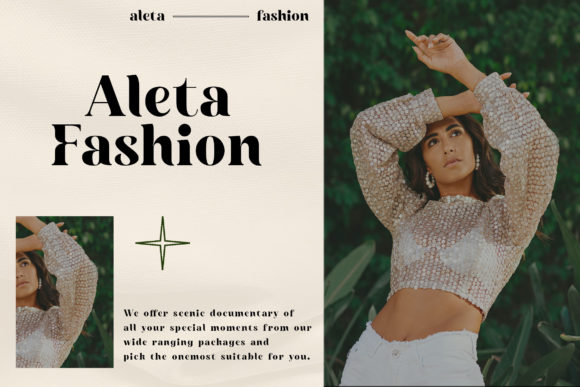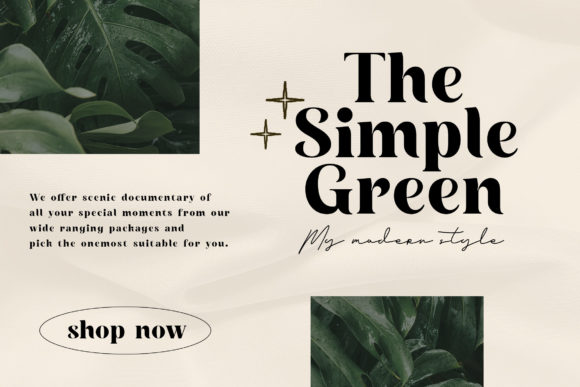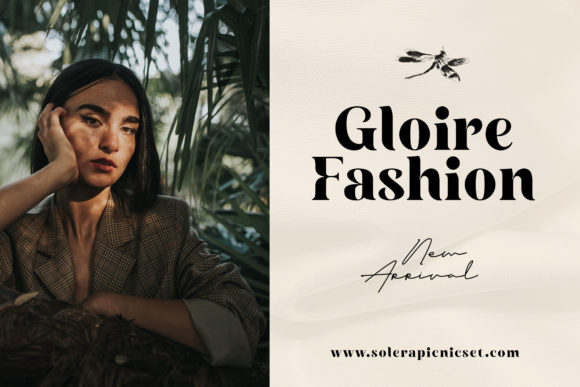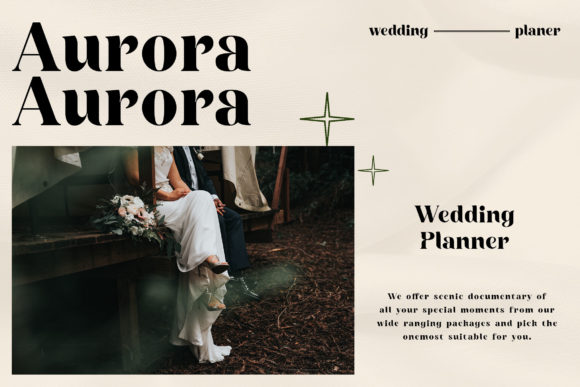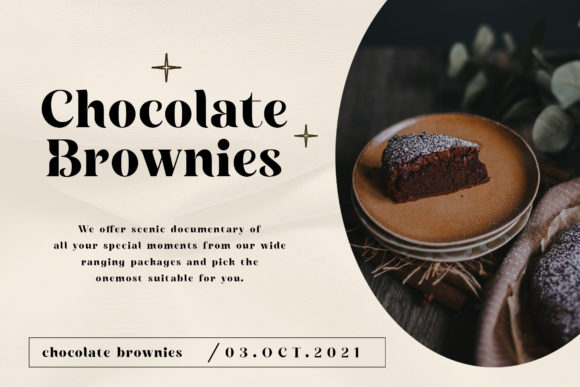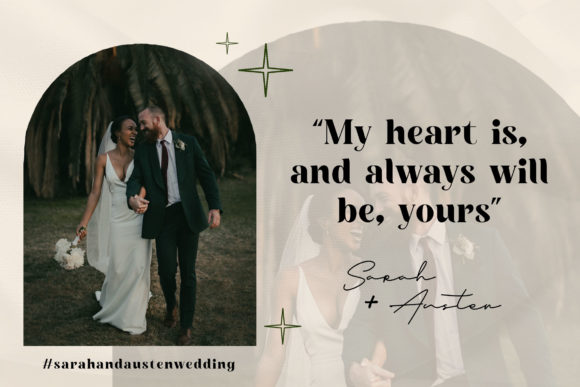
Introduction to Birds and Home Font
Birds and Home is a stylish and trendy display font.
This font reads as strong, confident, and dynamic and can add tons of nostalgic character to your designs .